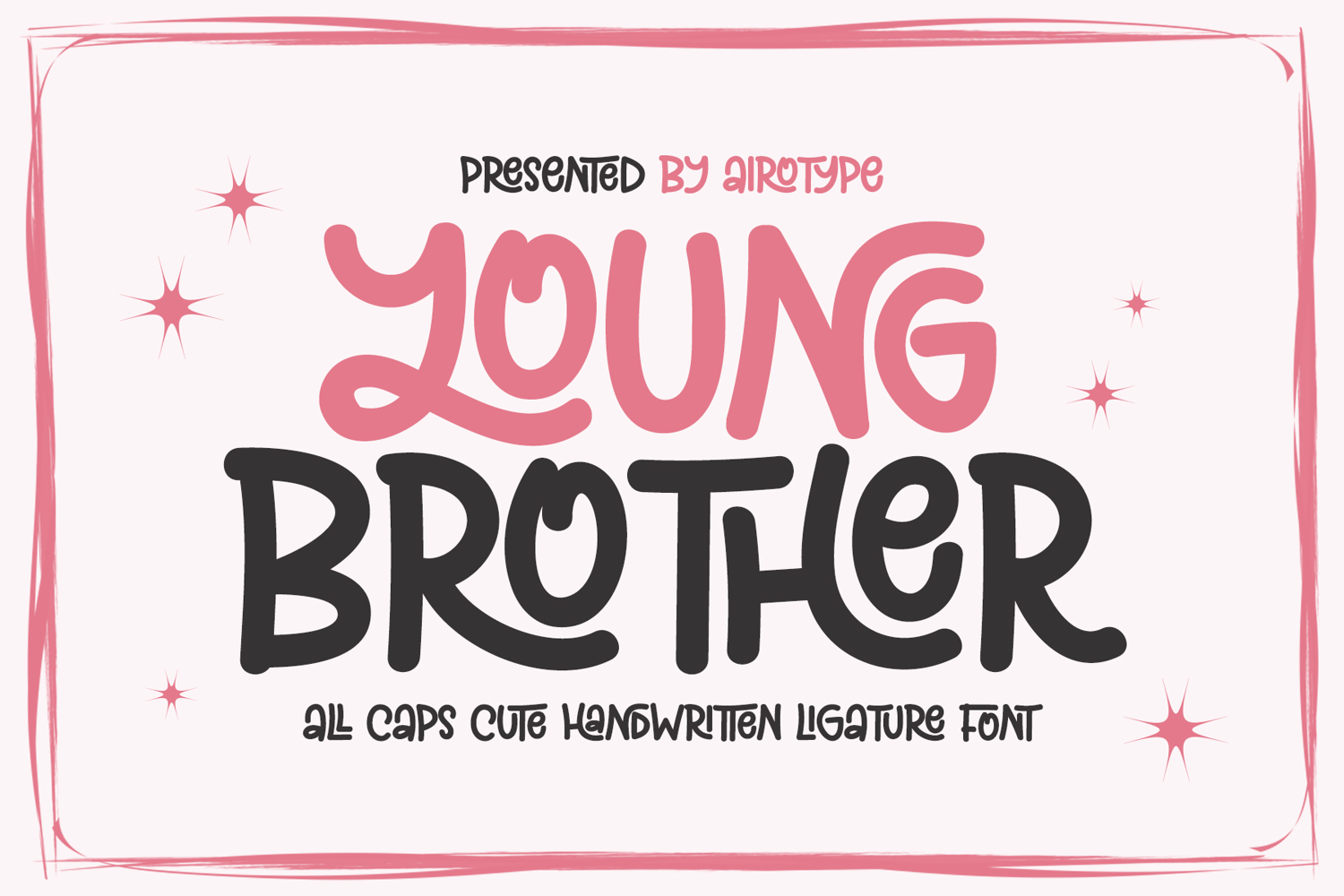
Young Brother is fun and cute all caps handwritten font, captivating joyful, happiness, and festive. It has tons of ligature that will add more casual and bouncy vibes.
Young Brother is pretty font for design with handwritten touch, such as back to school design, birthday invitation, summer holiday design, t-shirt design, crafting, sticker, poster, sublimation, and many more.